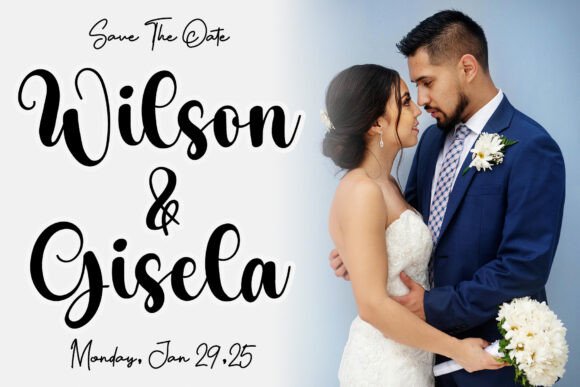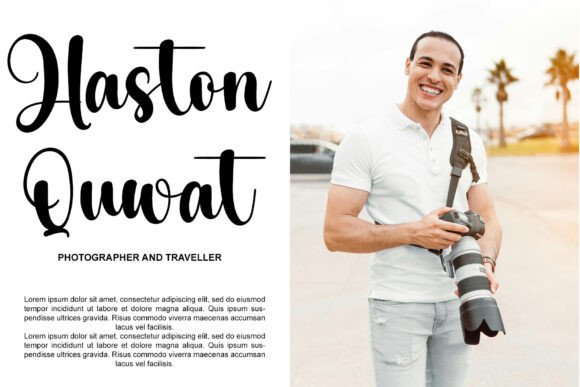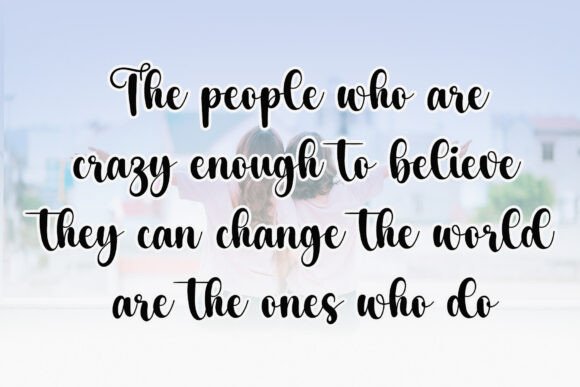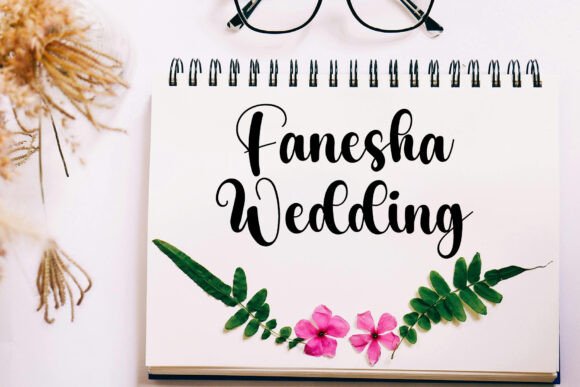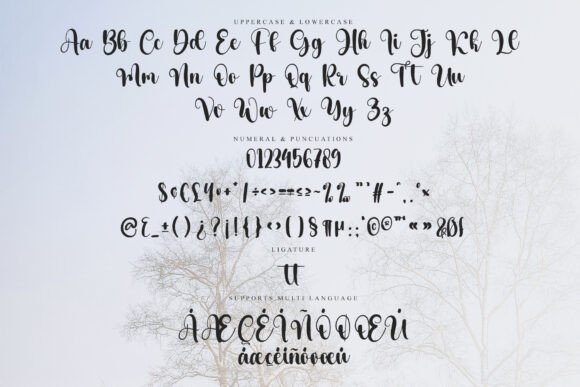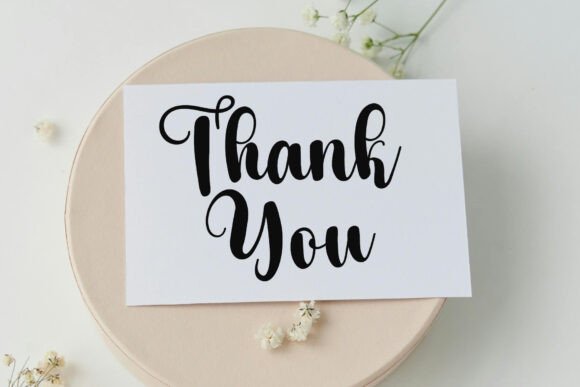
Introduction to Shady Winter Font
There’s something magical about holding a pen in your hand and watching a creative idea come to life on paper. It’s a feeling that’s hard to replicate with digital tools, but with the right font, you can get close. That’s where the Shady Winter Font comes in – a stunning handwritten font that’s perfect for adding a touch of elegance to your next creative project.
Whether you’re a graphic designer, illustrator, or simply someone who loves to create, the Shady Winter Font is a valuable addition to your design resource library. Its unique, timeless style is inspired by classic calligraphy, making it a versatile choice for a wide range of projects. And with its high-quality design, you can be sure that your work will stand out from the crowd.
Key Features of Shady Winter Font
- Unique, hand-drawn design inspired by the winter season, perfect for creative projects and design resources.
- Comes in a single weight, ideal for creating a cohesive and consistent look in design projects.
- Designed with a modern, elegant feel, making it a great addition to any creative project, from branding to editorial content.
Honest Review: Shady Winter Font
I recently had the chance to work with the Shady Winter Font in one of my creative projects, and I must say it was a pleasant experience. The font is a fantastic design resource that adds a touch of sophistication to any text-based element.
Here are some of the things that worked well for me: ✨
- High-quality design: The font has a crisp and clean aesthetic that makes it perfect for use in various design contexts.
However, I did encounter a few limitations: ⚠️
- Limited font sizes: The font might not be as effective at very large or very small sizes, which could be a limitation in certain design scenarios.
- Not ideal for bold headlines: While the font is great for body text, it might not be the best choice for bold headlines that require a more dramatic effect.
Overall, I’m quite impressed with the Shady Winter Font. It’s a solid design resource that can add a lot of value to your creative project. While it may have some limitations, it’s definitely worth considering for your next design endeavor.
For optimal results, use the Shady Winter Font in conjunction with other high-quality design elements. It’s ideal for creating a winter-themed design, such as a holiday card or a winter landscape. You can also use it for a creative project that requires a unique and stylish font.